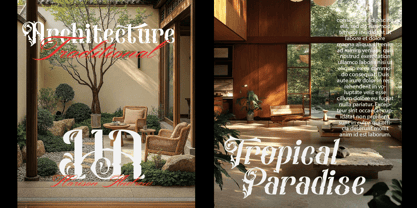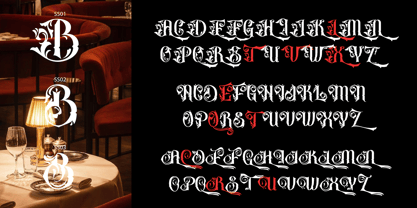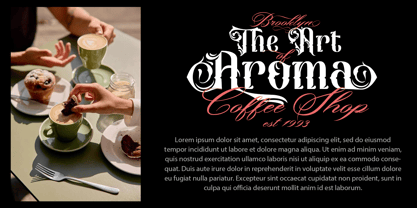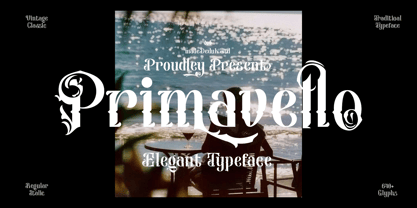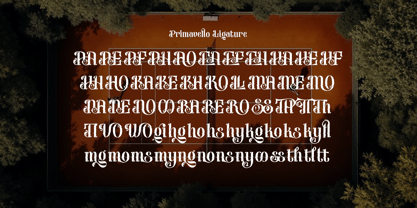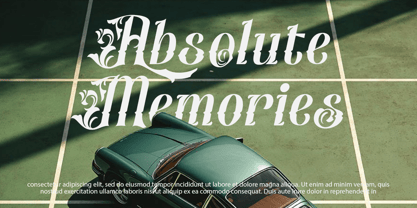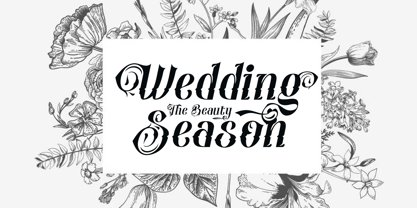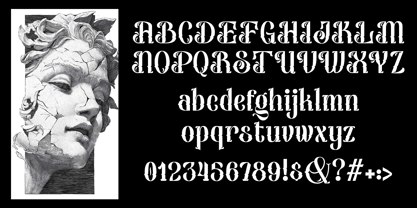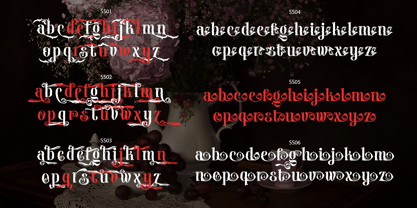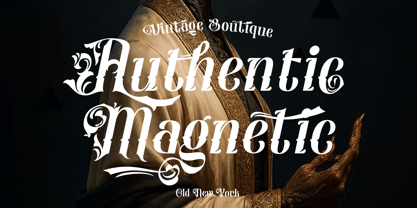
Primavello
by madeDeduk
The Primavello Font Family was designed by madededuk and published by madeDeduk. Primavello contains 2 styles and family package options. More about this family
This font features an elegant modern-decorative character with a tall, bold letter structure, creating a luxurious, authoritative, and classy impression. The combination of towering vertical letters and subtle curved details creates a balance between strength and elegance. This font is ideal for premium design needs such as logos, brand identities, headlines, and even modern wedding invitations and decorations. The elegant nuances combined with soft classic touches create an exclusive and romantic atmosphere, making each work appear more classy and memorable. This font conveys a sense of prestige without being overdone, perfect for designs that prioritize beauty, character, and luxury.